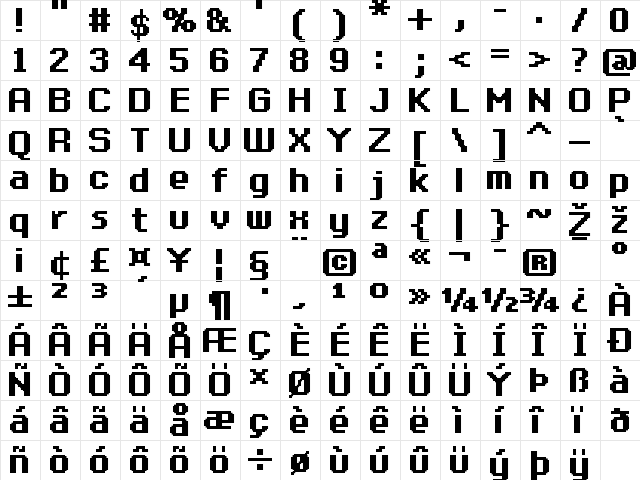
FFF Protege Bold Extended Regular
| Foundry | Fonts For Flash |
| Designer | Fonts For Flash |
Design Context for FFF Protege Bold Extended Typeface
FFF Protege Bold Extended offers clean, dependable letterforms without strong stylistic allegiance, making it a practical choice for designers who need flexibility. Its bold stroke weight gives it real presence on the page.